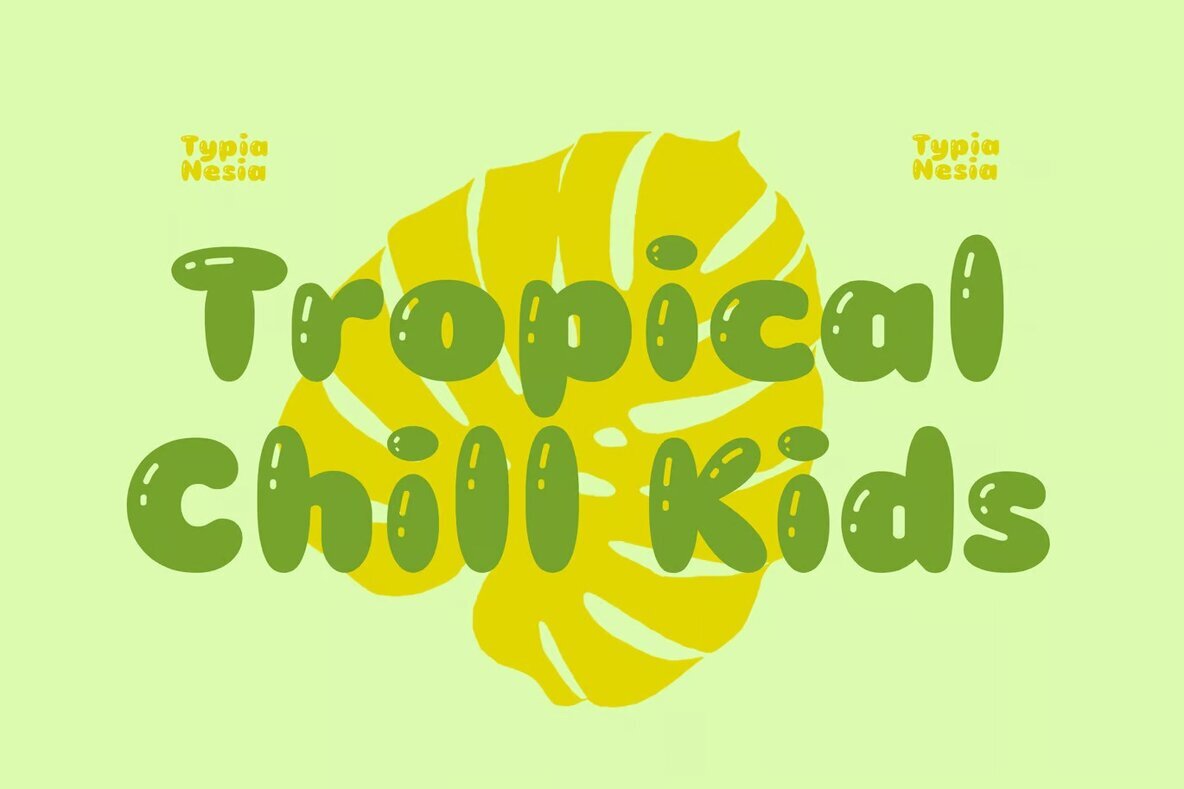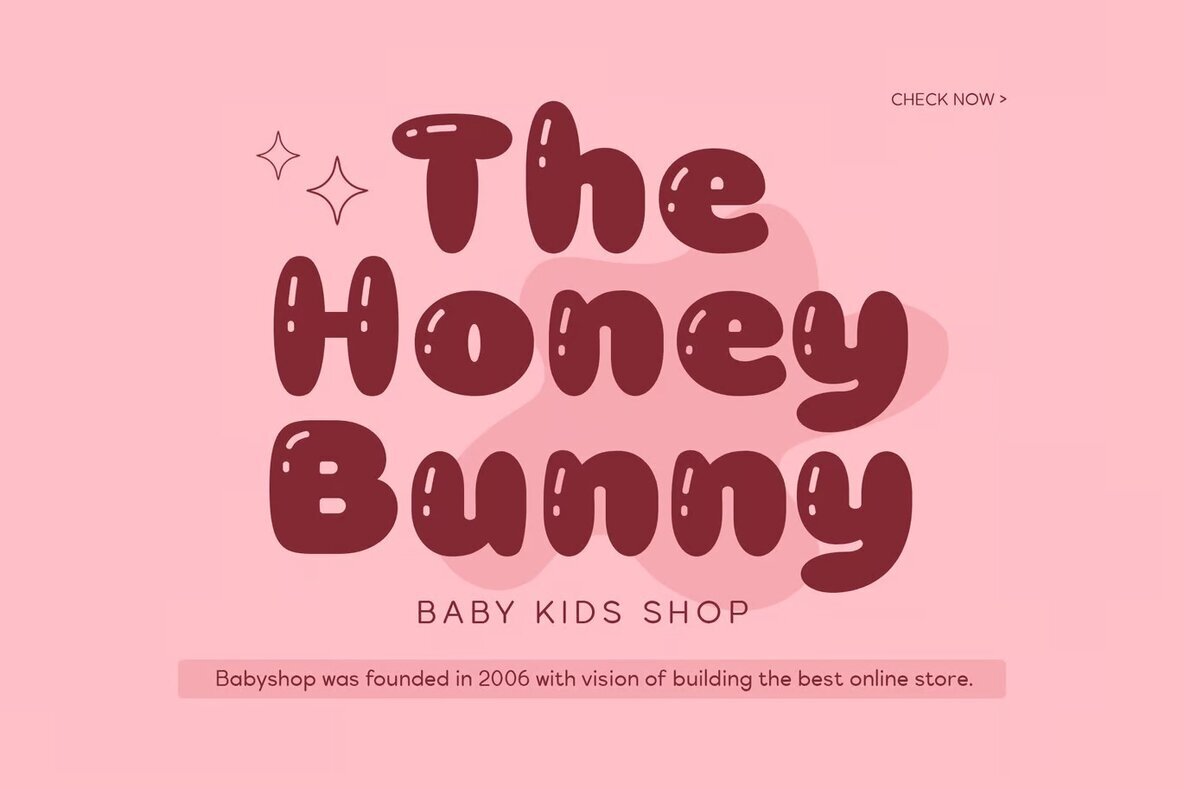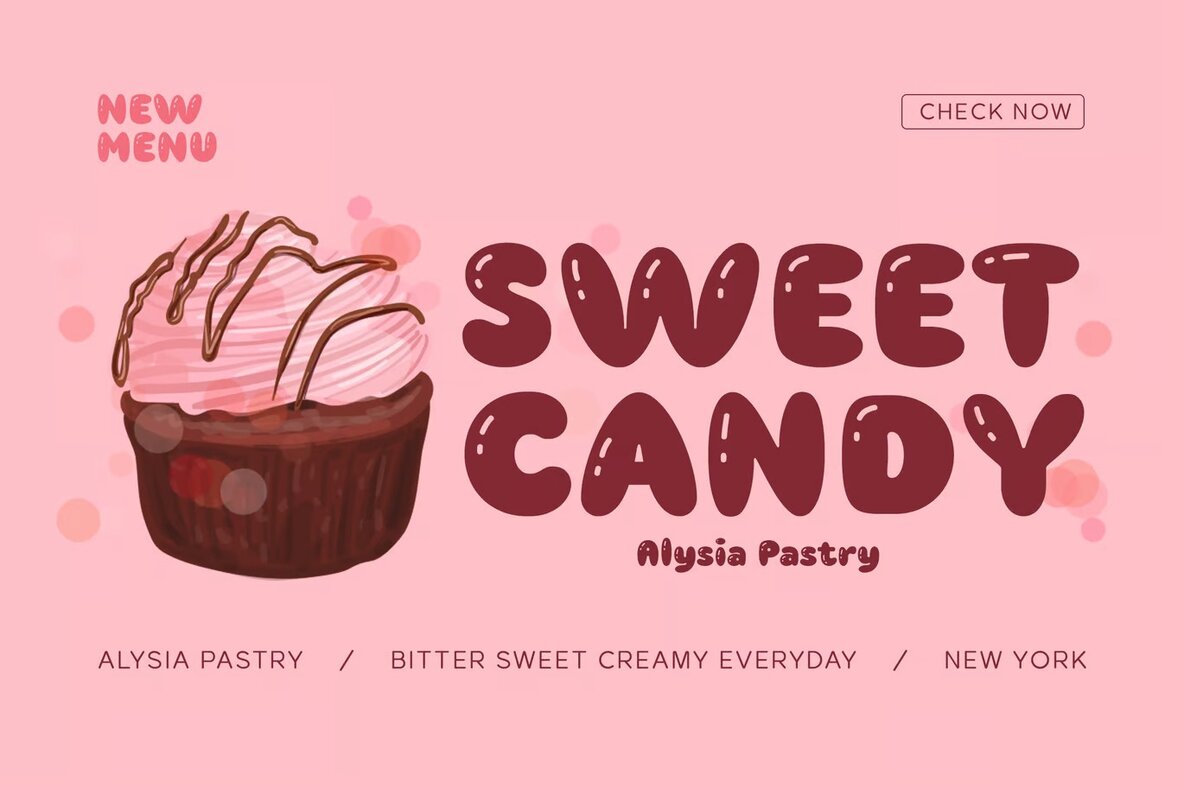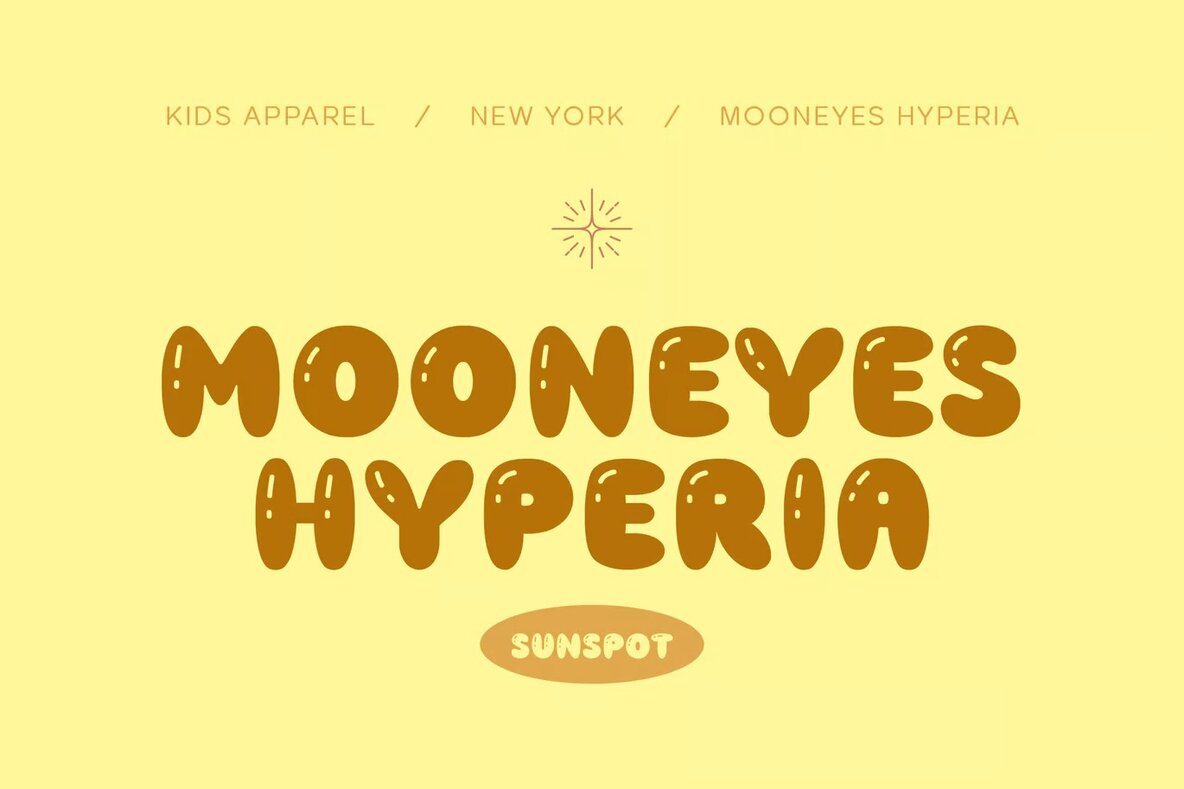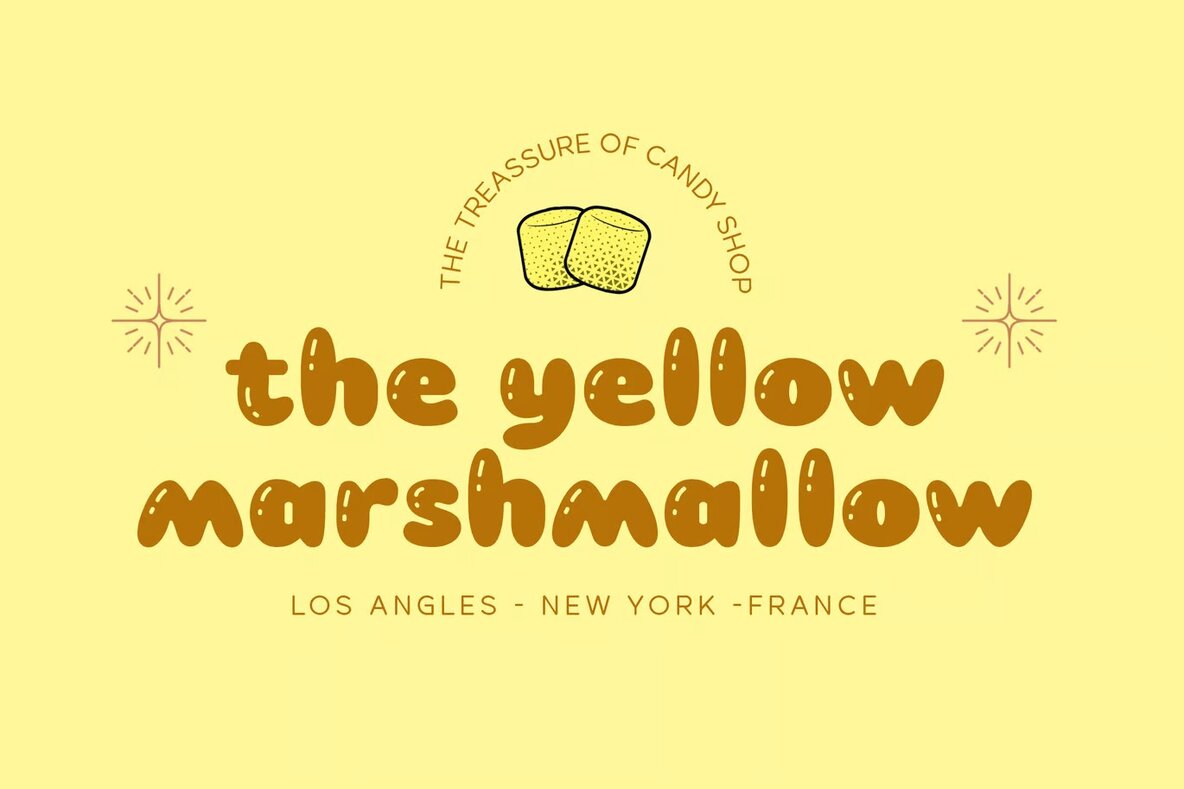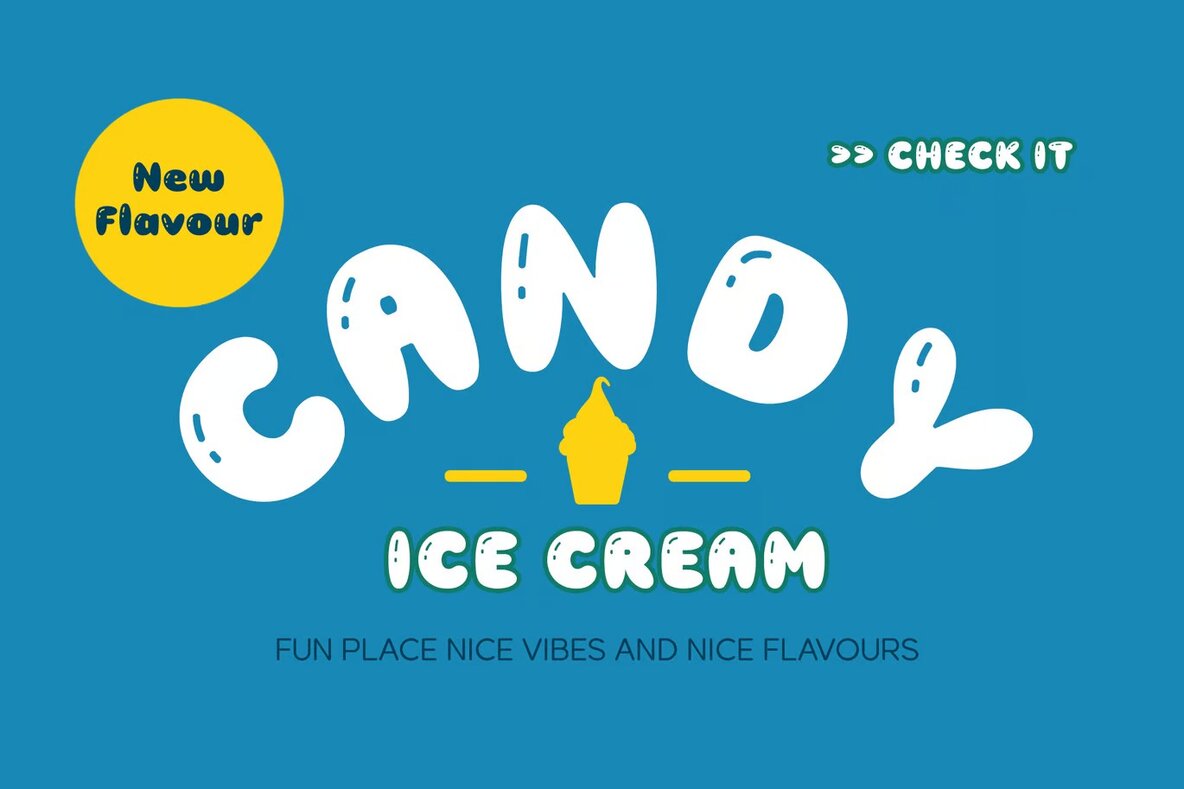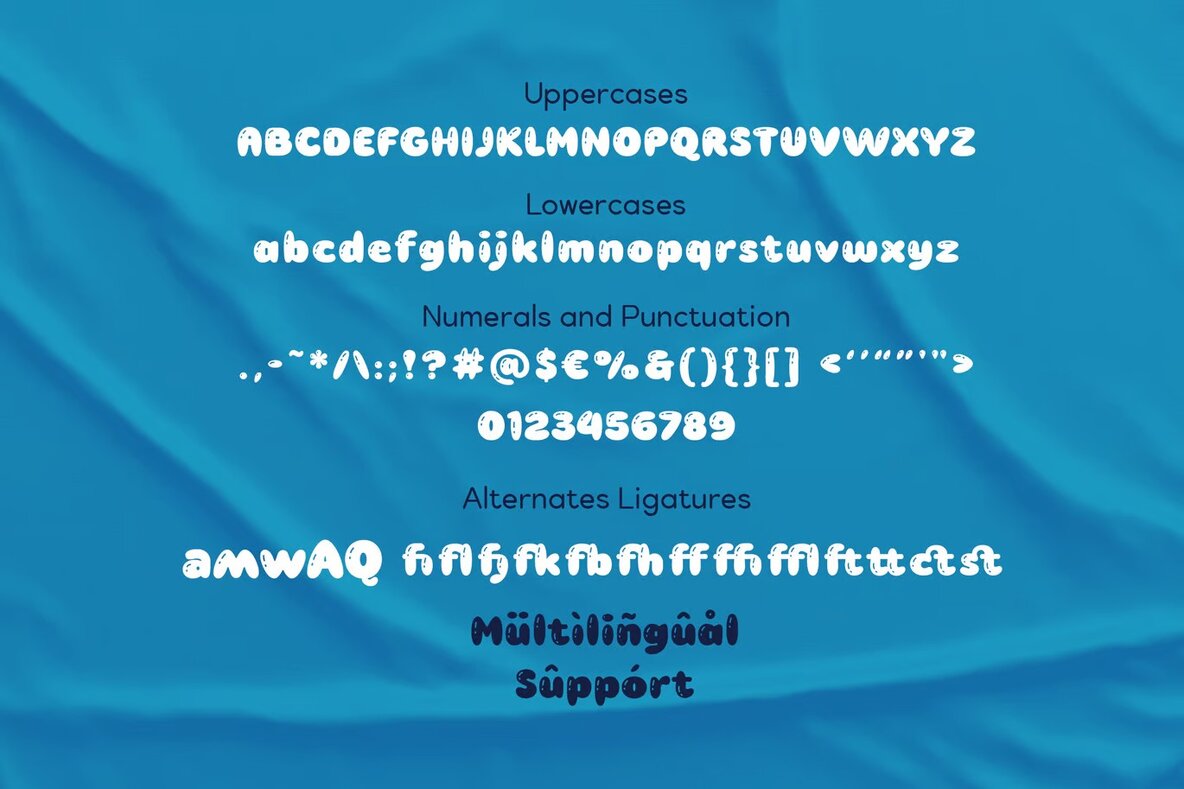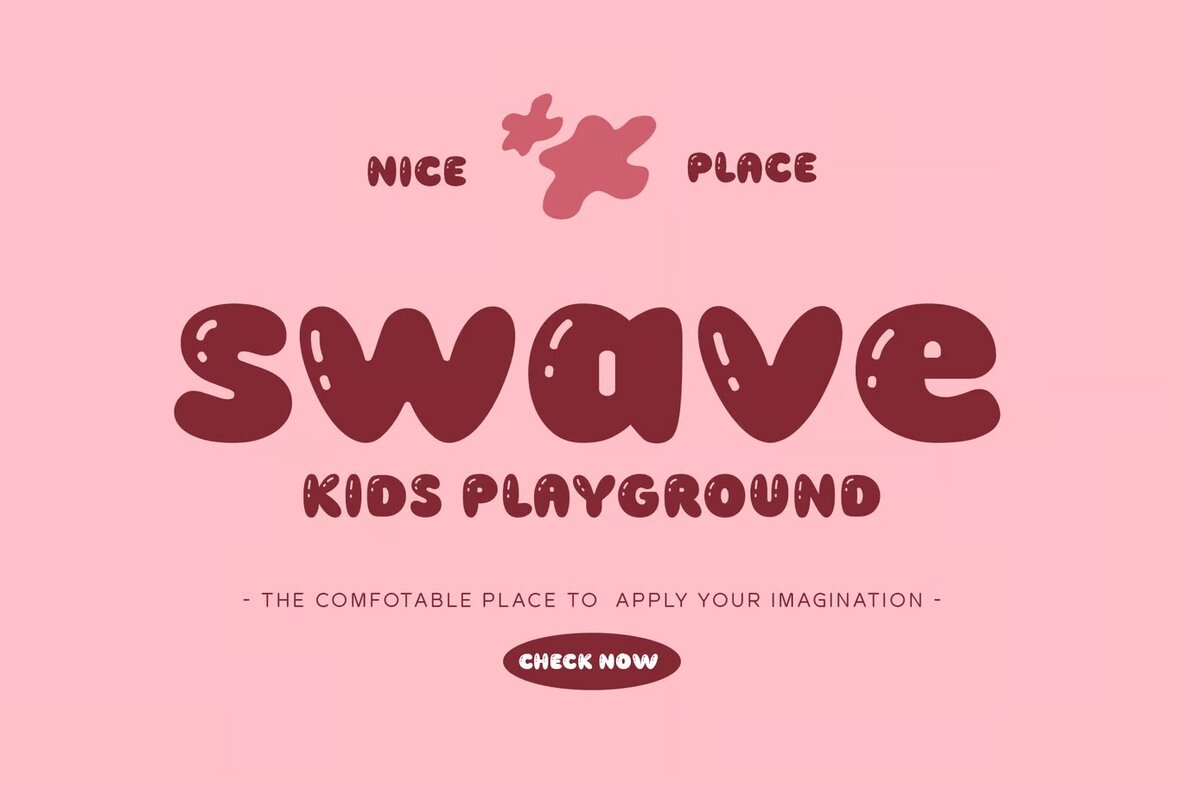
Sunspot Font
Sunspot Regular
Sunspot is a funny, funky, and playful balloon font perfect for any child or kid-themed design projects. Its bubbly and cartoonish style makes it ideal for creating standout logos for kid games, snack packaging, and kindergarten branding. This font adds a delightful touch to food and beverage packaging as well as toy brand identities, offering a fun and engaging look.
Use Sunspot in playful advertising designs, birthday party invites, cartoon animations, posters, and children's book covers. Its cheerful and lively appearance instantly captures attention, making it a go-to choice for any design needing a whimsical and joyful vibe.